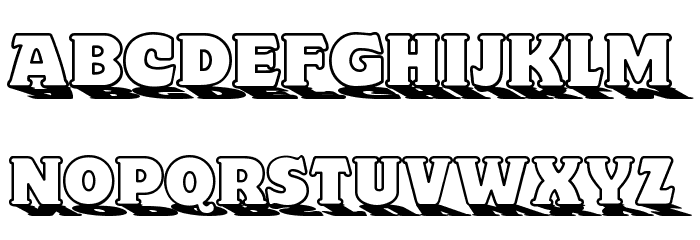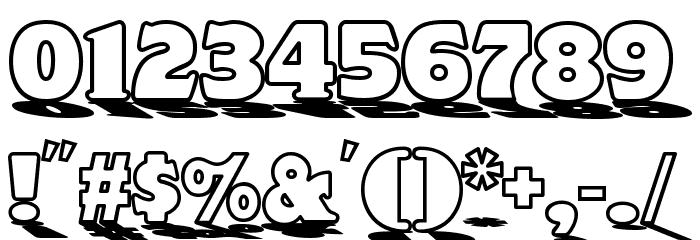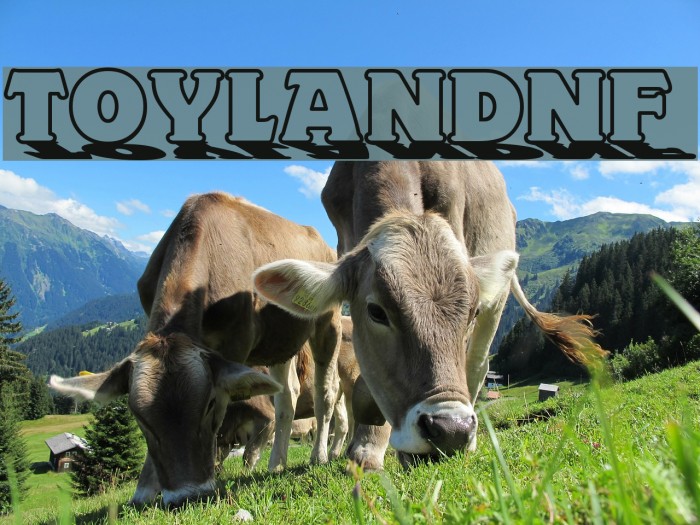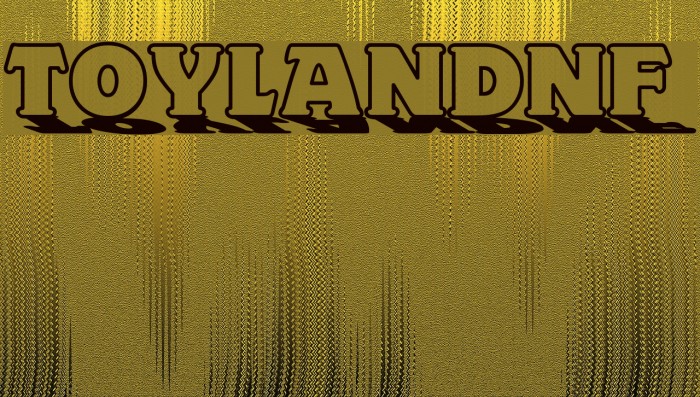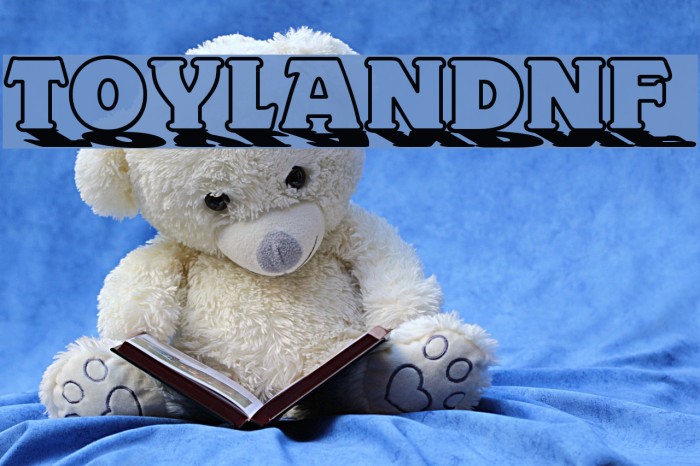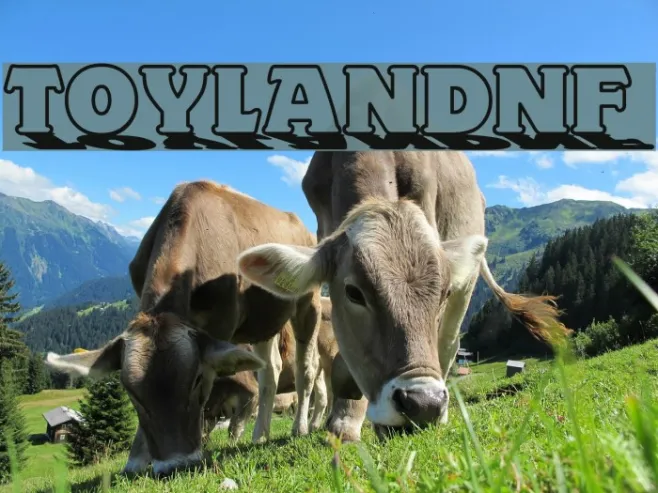
ToylandNF Font
This playful and bold font features a three-dimensional effect with a shadow that gives each character a sense of depth and movement. The letters are uppercase with a strong, solid presence, making them highly visible and attention-grabbing. The font's design is reminiscent of classic comic book styles, with thick outlines and a slightly rounded form that adds a friendly and approachable feel. The numbers and special characters maintain the same boldness and shadow effect, ensuring consistency across all elements.
A bold, playful font with a 3D shadow effect, ideal for eye-catching designs.
- Proposed Projects: This font is perfect for children's book covers, playful posters, comic strips, and any project that requires a fun and dynamic visual impact.
- Overall Style: Playful, Comic
- Use Case: Headlines, Posters, Children's Books